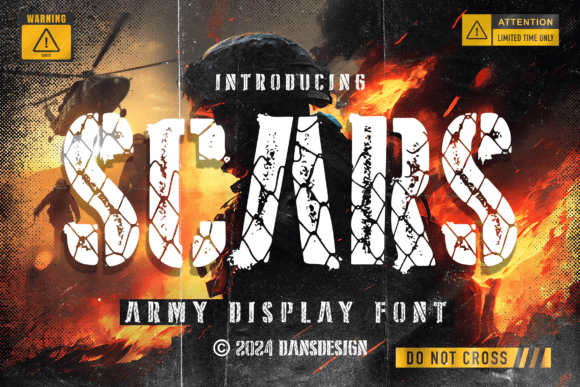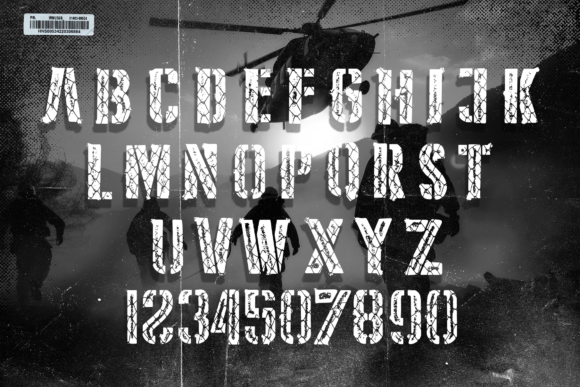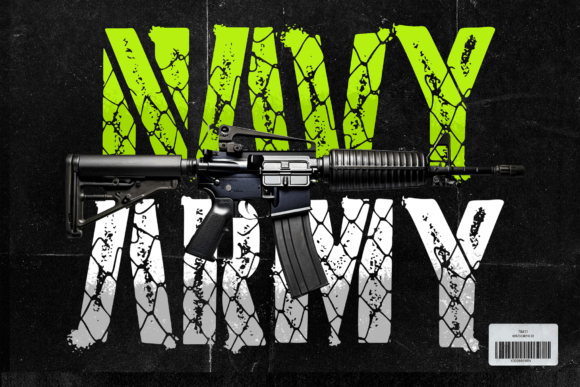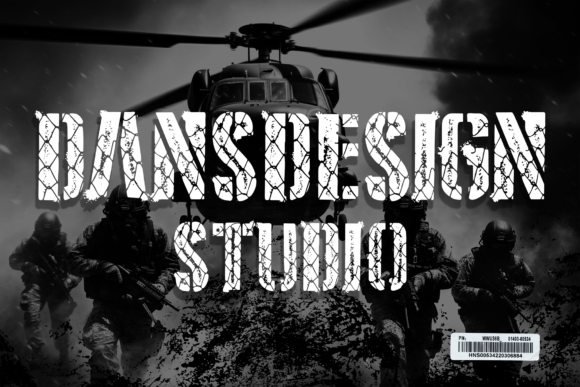
Scars Font: Rugged Stencil Display Font for Bold, Eye-Catching Designs
About the Scars Font
The wait is over! The incredible Scars Font is now available for your design toolkit. SCARS is a bold Display Stencil Army font. It’s tough and eye-catching, perfect for making a statement in your designs. Whether you’re creating posters, logos, or anything else that needs a strong presence, SCARS has got you covered. With its stencil style, it adds a rugged edge to your text, giving it a unique and commanding look.
Scars Font Usage Examples
Scars Font Example